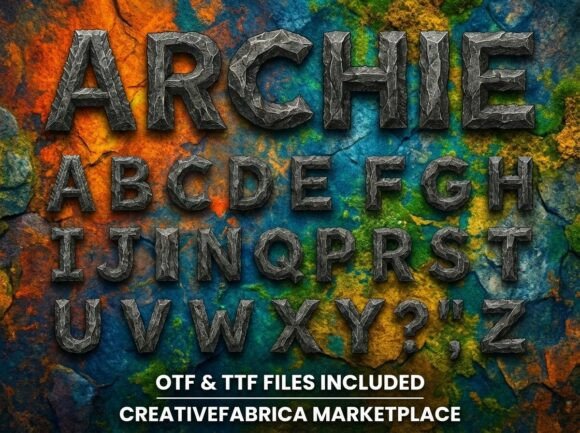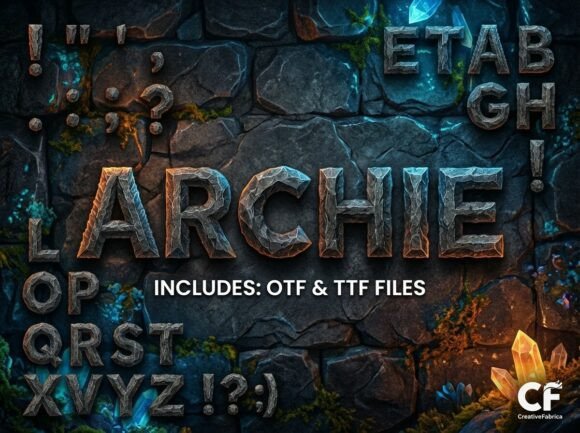
The Ultimate Showstopper: Unleashing the Power of Archie Font
I’ll never forget the design project that pushed me to discover Archie Font. I was working on a bold poster design for a local art festival, and my client wanted something that would truly stand out. As I scrolled through font after font, nothing seemed quite right – until I stumbled upon Archie. Its unique artistic elements and strong visual personality immediately caught my eye, and I knew I had found the perfect fit. In this article, I’ll share my experience with Archie Font, its features, and how to make the most of it in your designs.
A First Impression: What Makes Archie Font Special
Archie Font is a stunning decorative display font designed to be the center of attention. With its intricate details and creative letterforms, it’s perfect for high-impact designs where the typography needs to do the talking. Here are some of the features that make Archie Font stand out:
- ✨ Unique artistic elements that add an instant “wow” factor to any project
- ✅ Strong visual personality that’s perfect for bold headlines and artistic logos
- ⚠️ Versatile enough for a range of design applications, from posters to packaging
As with any font, Archie has its strengths and a few minor quirks. Here’s my honest review:
- ✨ The level of detail in each letterform is exceptional, making it perfect for high-end designs
- ✅ It’s surprisingly versatile, working well for both bold headlines and smaller text
- 🤔 Some of the intricate details can get lost at smaller font sizes, so use it wisely
- ⚠️ It may not be the best choice for body text or long paragraphs – it’s truly a display font
The Story Behind Archie Font
Archie Font was designed by a team of creatives who wanted to push the boundaries of traditional typography. Inspired by art, architecture, and nature, they crafted a font that’s both visually striking and versatile. While the designers remain anonymous, their passion for innovative design shines through in every detail of Archie Font.
Q: What type of designs is Archie Font best suited for?
A: Archie Font is perfect for high-impact designs like poster design, branding and logos, apparel and merch, social media content, and packaging.
Q: Is Archie Font difficult to read?
A: As a decorative display font, Archie Font is best used in moderation. While it’s not ideal for long paragraphs, it’s perfect for bold headlines and attention-grabbing text.